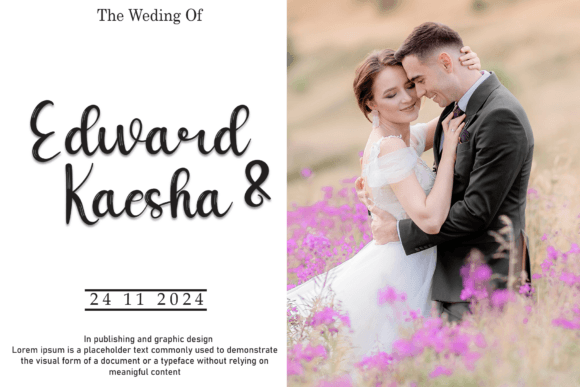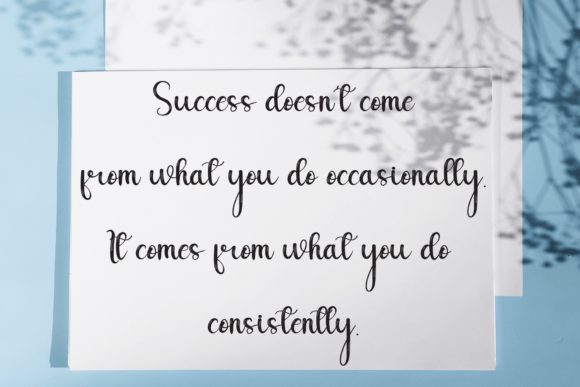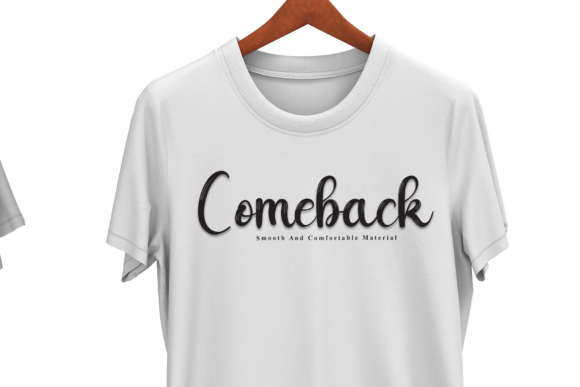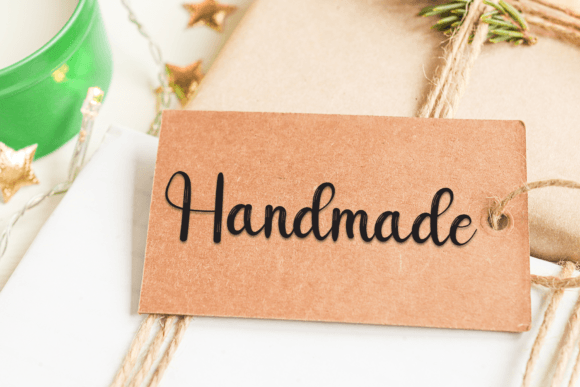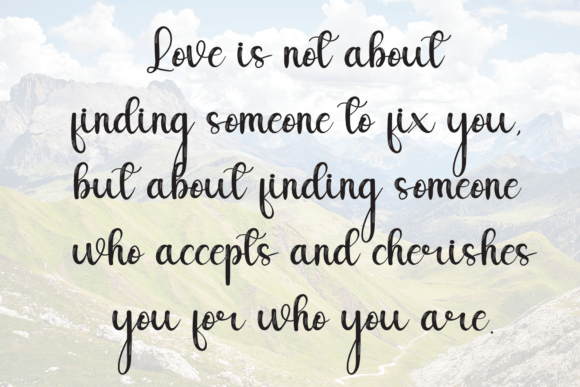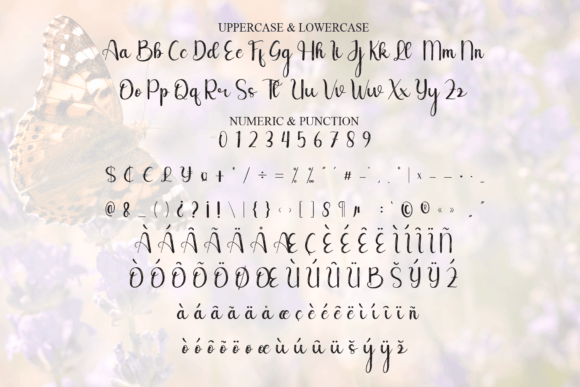
Bring a Touch of Whimsy to Your Designs
Have you ever been brainstorming ideas for a project, and suddenly, a spark of creativity hits you? You envision a design that exudes joy, playfulness, and a dash of magic. That’s exactly what happens when you fall in love with the Butterfly Font – a charmingly playful handwritten display font that adds a touch of whimsy to every project.
This delightful font is perfect for wedding invitations, greeting cards, and any design that needs a splash of personality. With its vibrant and friendly vibe, the Butterfly Font is sure to breathe life into your creations, making them stand out in a crowd. Whether you’re a seasoned designer or a newcomer to the world of typography, this font is a valuable addition to your toolkit, offering endless possibilities for creative expression.
Key Features of Butterfly Font
- Unique Characteristics: The Butterfly Font features a unique, whimsical design with a mix of elegant and playful elements, making it perfect for use in creative and artistic projects.
Butterfly Font Review
I recently had the chance to work with the Butterfly Font, and I must say it’s a delightful addition to any design project. ✨ Here are some of the things I love about it:
- Unique aesthetic: The Butterfly Font has a whimsical, hand-drawn feel that adds a touch of elegance to any design.
- Flexibility: It works well for both digital and print projects, making it a versatile choice for designers.
- Legibility: The font is highly legible, even at smaller sizes, making it perfect for body text or headings.
Of course, no font is perfect, and the Butterfly Font has some limitations:
- Limited scalability: While the font is legible at smaller sizes, it can start to look a bit pixelated when scaled up to very large sizes.
- Not suitable for bold, high-contrast text: The font’s delicate lines can get lost in bold or high-contrast text, making it harder to read.
Overall, I think the Butterfly Font is a great choice for designers looking for a unique, elegant font that adds a touch of whimsy to their projects. While it has some limitations, I think the benefits far outweigh the drawbacks.
The Butterfly Font is ideal for:
- Stationery and greeting cards
Tips: Use the Butterfly Font to add a playful and whimsical touch to your design. Experiment with different font combinations and styles to create a unique and eye-catching look.